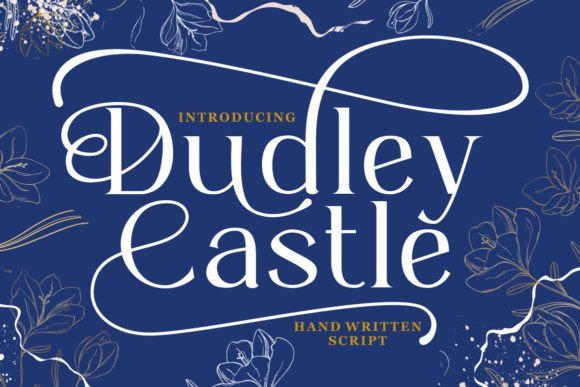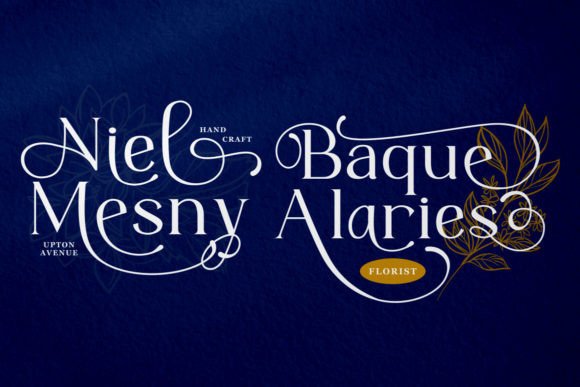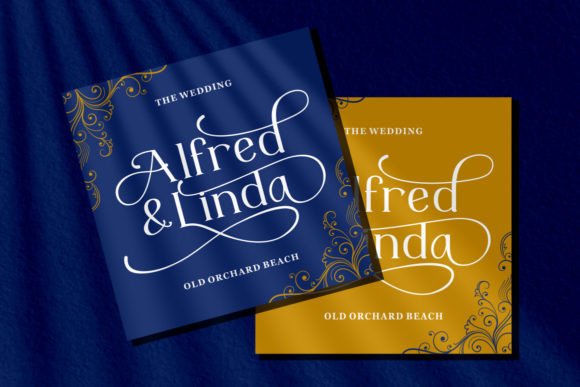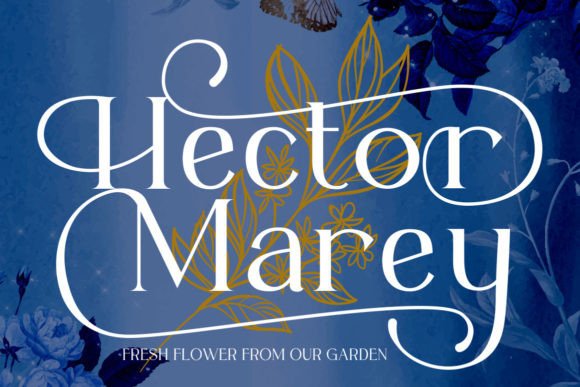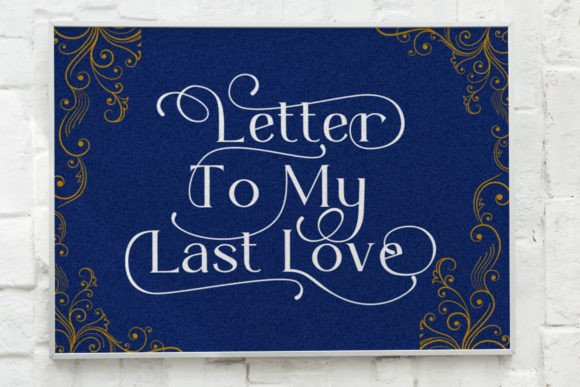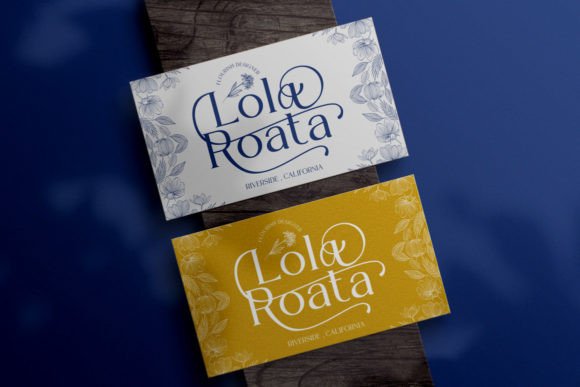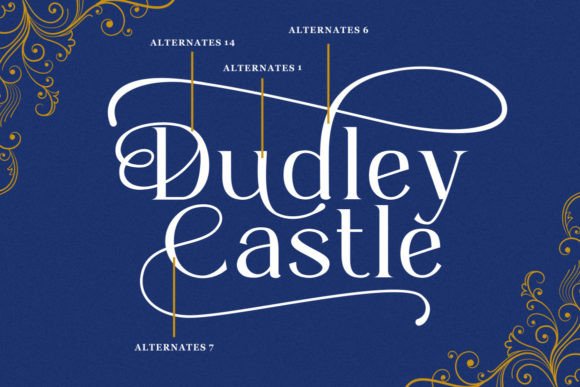
The Perfect Script: Unlocking the Beauty of the Dudley Castle Font
As a designer, there’s nothing quite like the thrill of discovering a new font that captures the essence of your creative vision. For me, that moment came when I stumbled upon the Dudley Castle Font – a beautifully crafted hand-written script font that exudes elegance and luxury.
With its hand-drawn script style, the Dudley Castle Font adds a personal touch and a sense of authenticity to your designs. Whether you’re working on a title for a magazine, a name for a product, or a logo for a high-end brand, this font is sure to elevate your visual appeal and add a touch of sophistication. As a valuable tool for designers, the Dudley Castle Font offers versatility and creative freedom, making it an essential addition to any design arsenal.
Dudley Castle Font Key Features
- Font Family: Dudley Castle Font is a custom-designed font family, ideal for use in historical and medieval-themed projects.
- Character Count: The font family includes a wide range of characters, including uppercase and lowercase letters, numerals, punctuation marks, and special characters.
- Unique Characteristics: The Dudley Castle Font features a distinctive, hand-drawn design with intricate details and ornate flourishes, evoking the elegance and grandeur of medieval architecture.
- Size: The font family includes multiple weights and styles, ranging from Light to Bold, allowing designers to achieve a range of visual effects and moods.
Dudley Castle Font Review
First off, I’d like to say that the Dudley Castle Font has some great qualities. ✨ The font is quite unique and has a certain medieval charm to it. The intricate details and ornate designs are reminiscent of ancient castle architecture, making it perfect for projects that require a touch of history.
The font comes in a range of weights and styles, which is great for designers who need flexibility. ✨ It’s also highly customizable, allowing you to tweak the design to fit your specific needs. However, I do think that the font would benefit from a more comprehensive guide on how to use it effectively.
- ⚠️ The font can be quite busy and overwhelming if used extensively. It’s best to use it in moderation to avoid visual clutter.
- ⚠️ The font is not ideal for body text, as it can be difficult to read in smaller sizes.
- ⚠️ The font does not come with a complete character set, which may limit its use in certain languages or contexts.
Overall, I think the Dudley Castle Font is a great addition to any designer’s toolkit. While it may have some limitations, its unique design and versatility make it a valuable resource for projects that require a touch of elegance and sophistication.
For the best results, use the Dudley Castle Font in combination with other vintage or distressed elements. This font is particularly well-suited for creating a distressed or worn look.
The Dudley Castle Font is commonly used for:
– Creating vintage or distressed text effects
– Designing posters or flyers with a historical or nostalgic theme
– Adding a touch of elegance to invitations or greeting cards